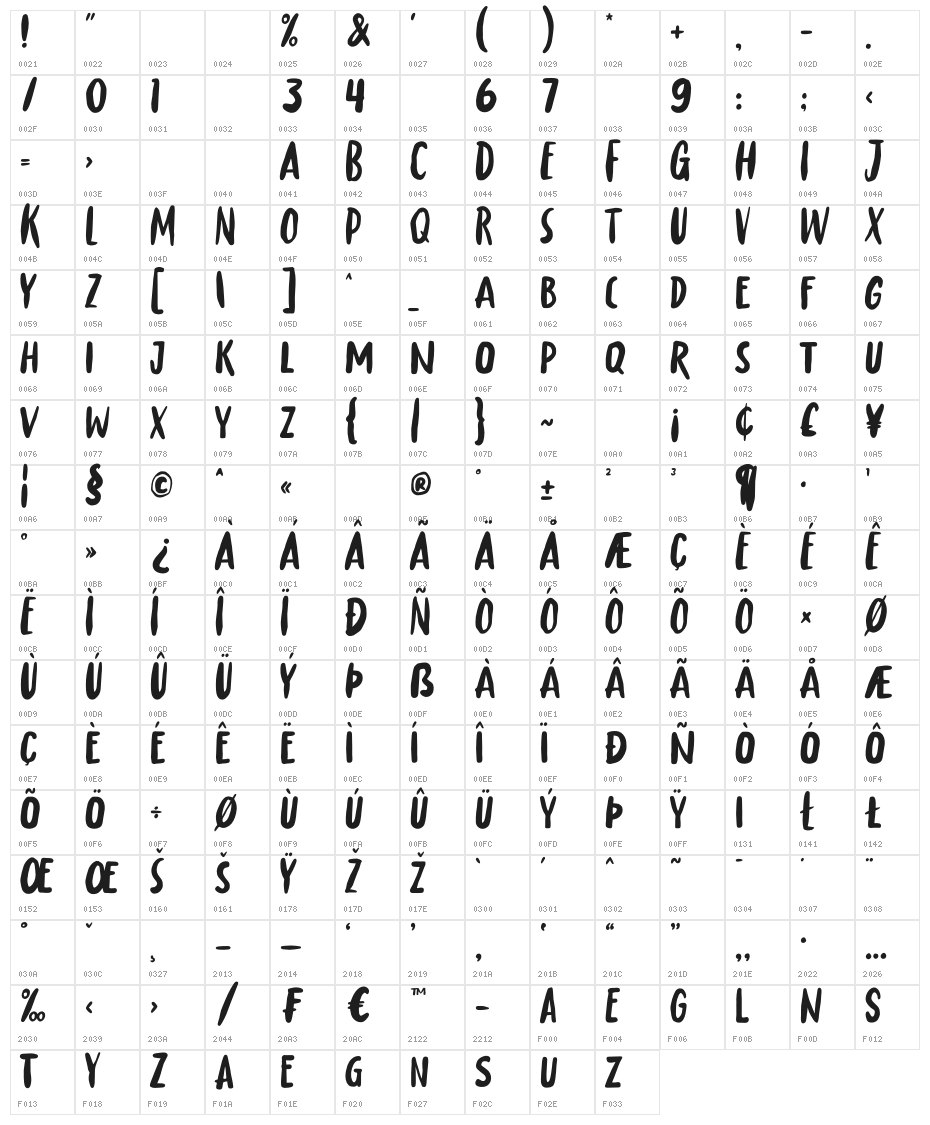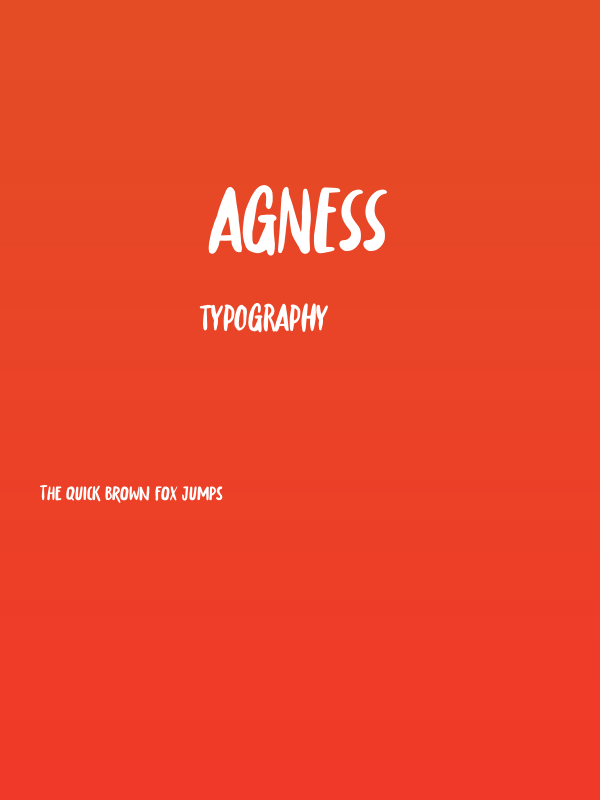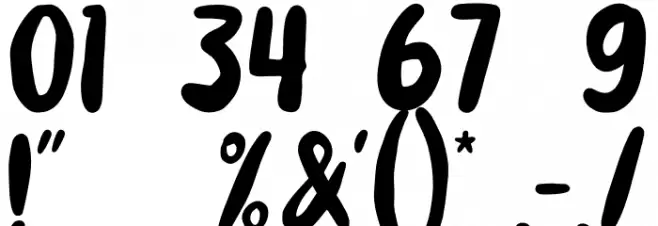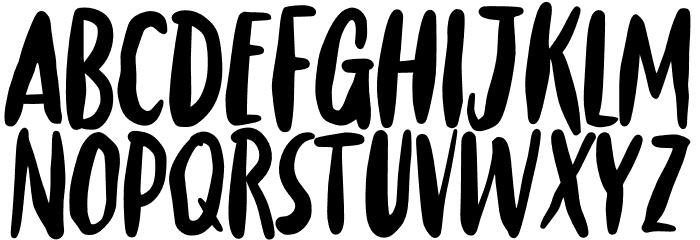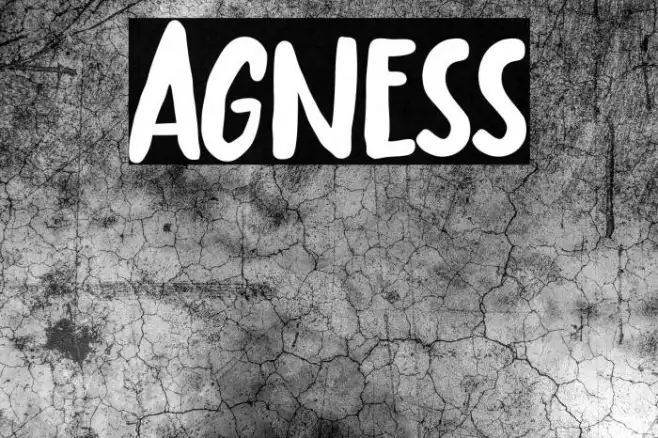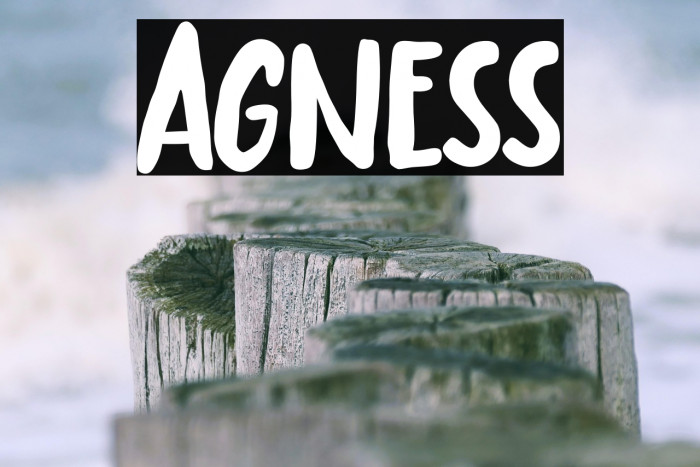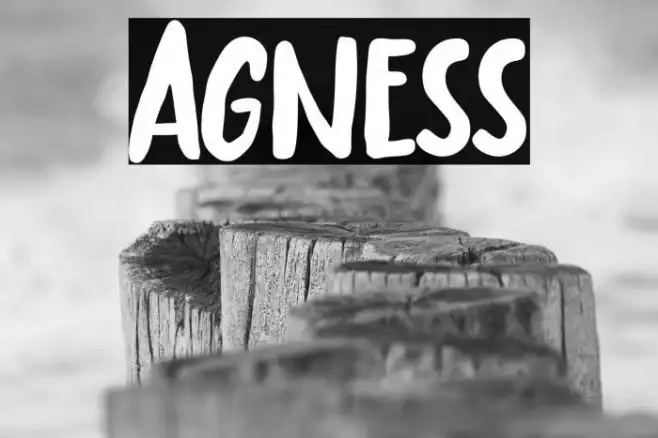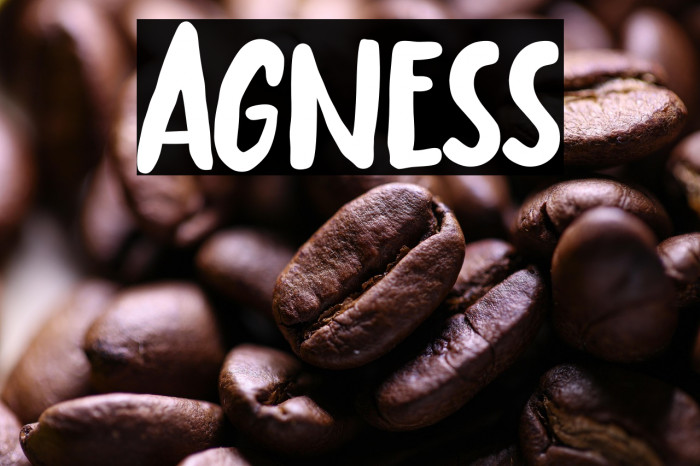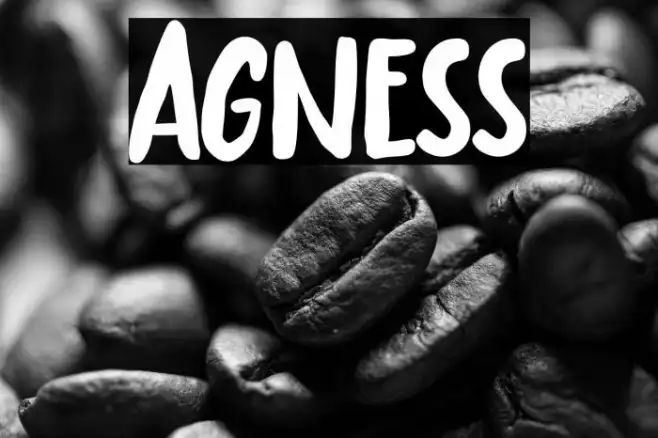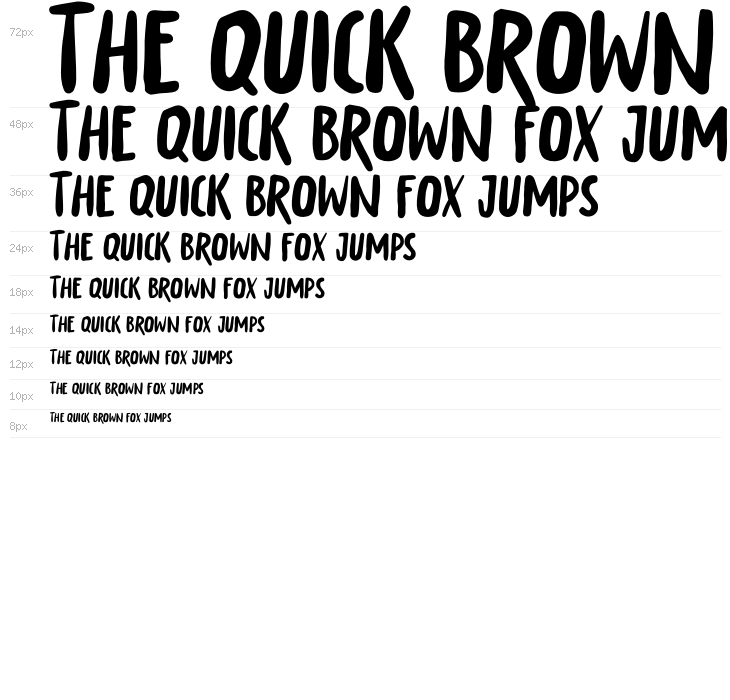
Agness Font
Agness Description
This font features a bold and playful handwritten style, characterized by its thick strokes and slightly irregular letterforms. The uppercase and lowercase letters maintain a consistent flow, giving it a casual yet energetic appearance. The numbers and special characters are equally bold, ensuring a cohesive look across all elements. The font's organic feel makes it suitable for projects that require a personal touch or a sense of informality.
| Overall Style | Playful, Casual |
| Proposed Projects | Ideal for greeting cards, children's books, playful branding, and social media graphics. |